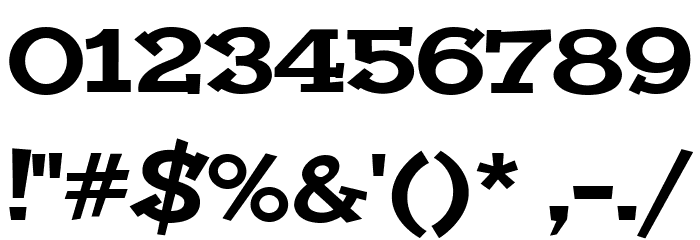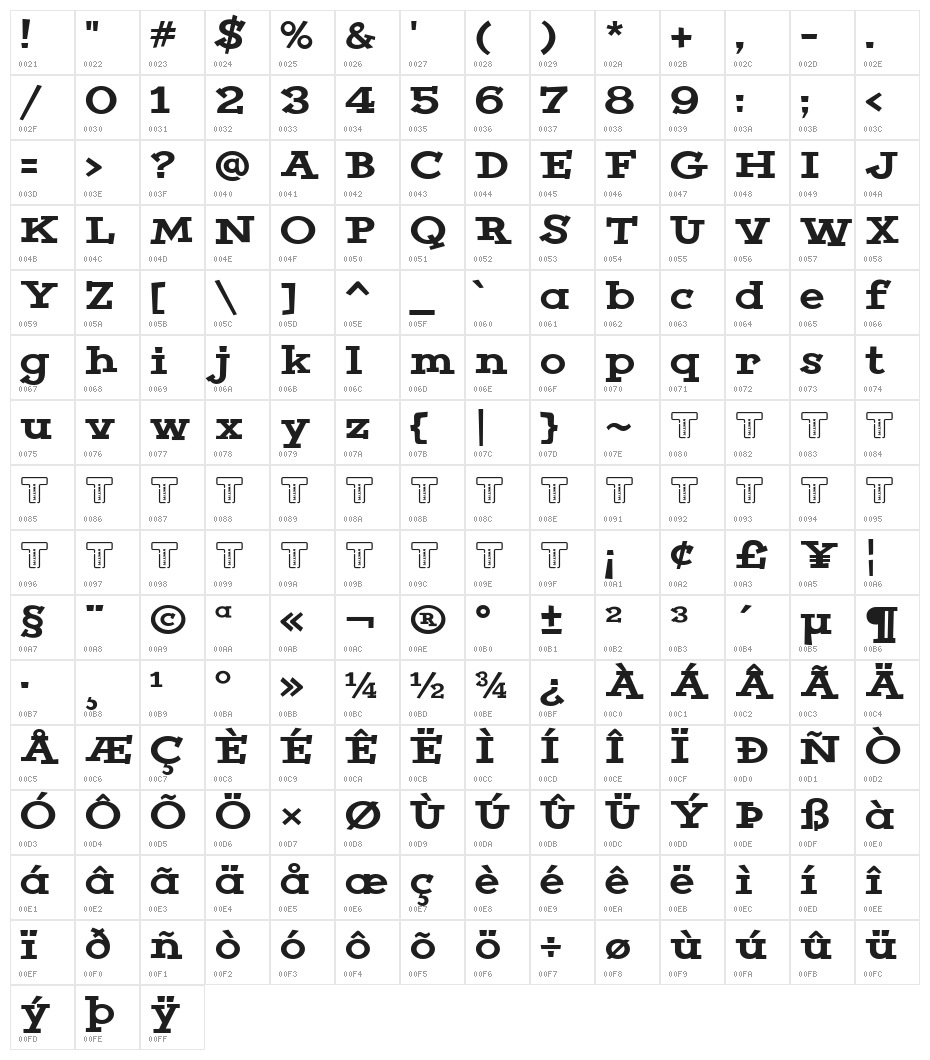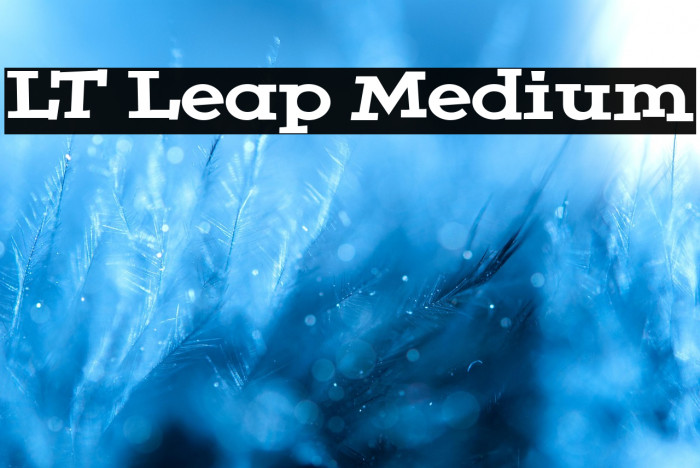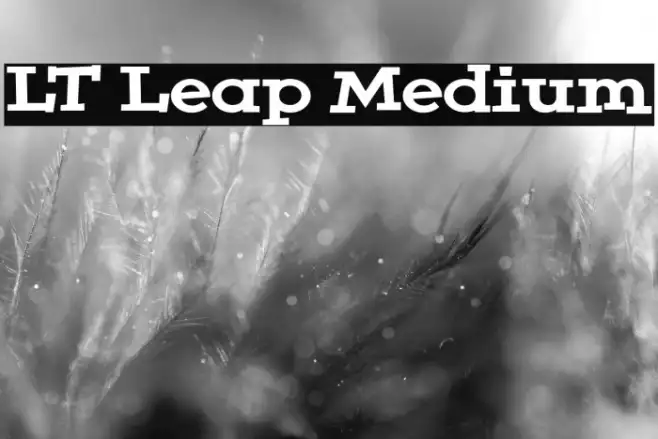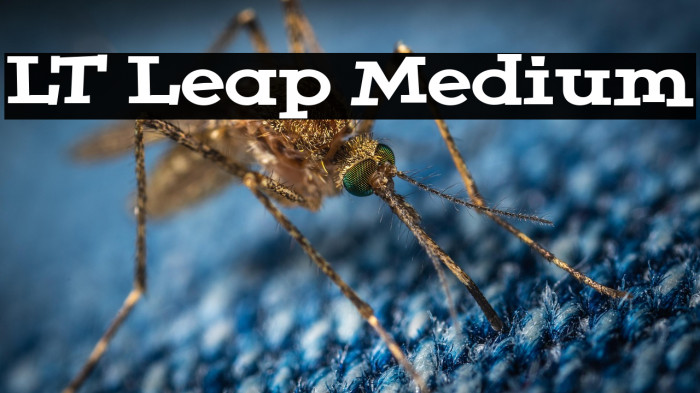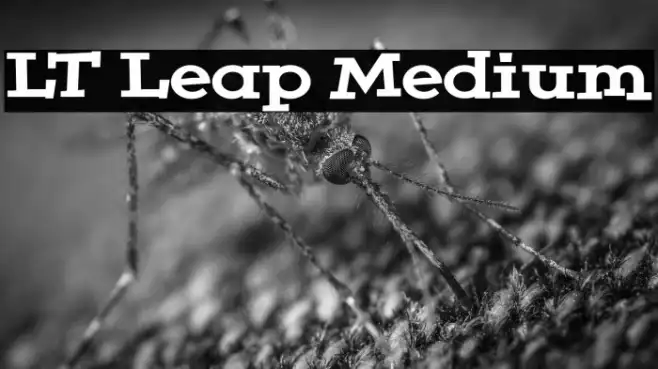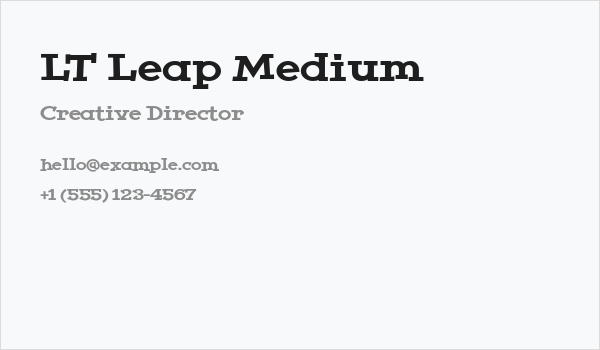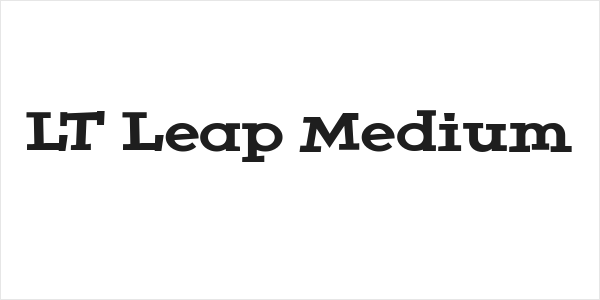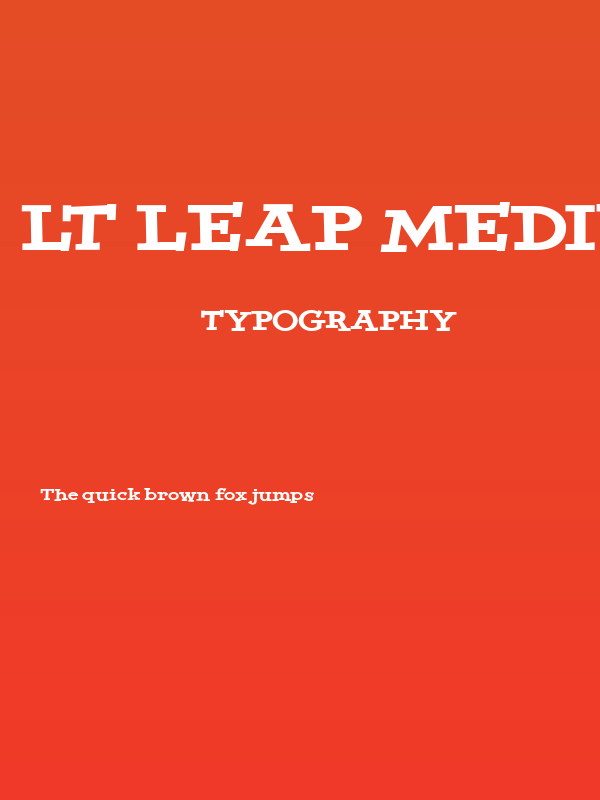
LT Leap Medium Font
LT Leap Medium Description
This font features a bold and robust slab serif style, characterized by thick, block-like serifs that provide a strong and confident appearance. The uppercase letters are uniform in height, while the lowercase letters maintain a consistent baseline, offering a harmonious and balanced look. The numerals are clear and legible, making them suitable for various applications. The special characters are distinct and well-defined, ensuring versatility in design projects. Overall, the font exudes a modern yet classic feel, making it ideal for impactful headlines and branding.
Overall StyleModern Classic
Proposed ProjectsIdeal for branding, headlines, posters, and any design requiring a strong visual impact.